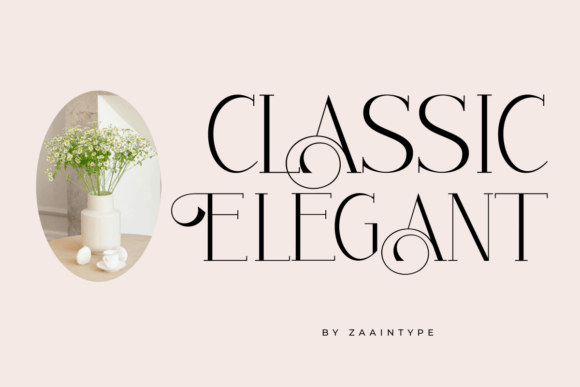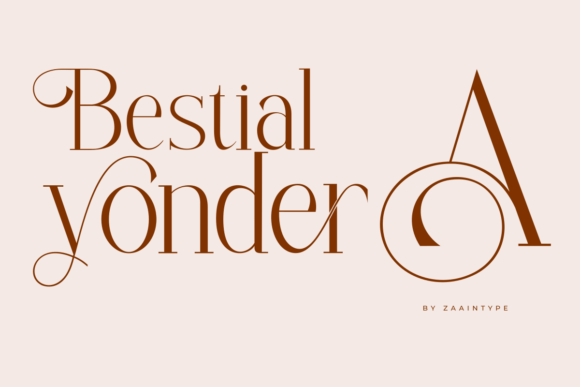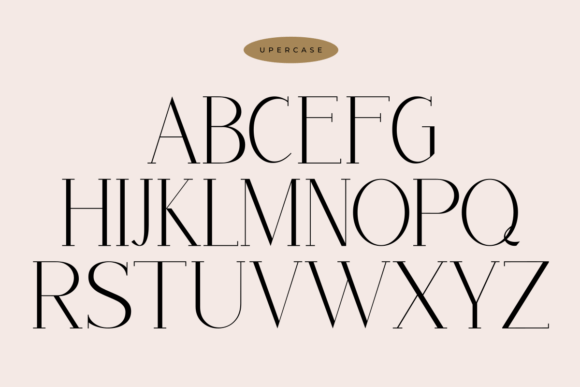
Artomy Font
Immerse yourself in the progressive allure of Artomy, a contemporary display font defined by bold dynamism and high-impact personality. Artomy captivates with its pure, geometric architecture, turning sharp angles and robust lines into a compelling voyage toward a visionary future. Artomy bestows every character with a hint of asymmetry, adding a multidimensional allure that crafts a distinct aesthetic edge. Discover Artomy, a unique visual game-changer that can transform your logo, elevate your poster design, or infuse any project with groundbreaking modernity.